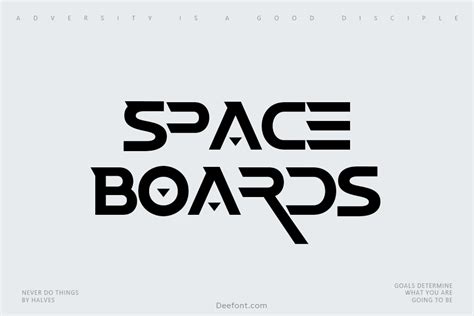
Space Boards Font. Web space boards display font. It’s a cool and bold display font package by saridezra.
Web space boards display font is a sans based font with unique lowercase & uppercase that will make your design. Web space boards display font. It’s a cool and bold display font package by saridezra. Space boards will bring bright.
Space boards will bring bright. Web space boards display font is a sans based font with unique lowercase & uppercase that will make your design. Space boards will bring bright. Web space boards display font. It’s a cool and bold display font package by saridezra.